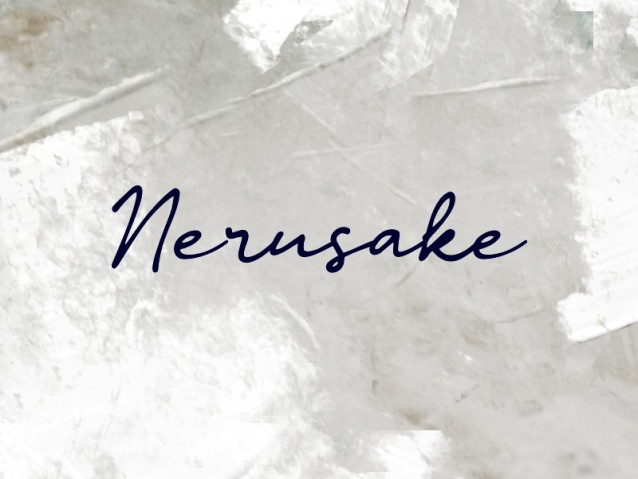
Nerusake Font
Nerusake Font is a simple and friendly handwritten font. Its natural and unique style makes it incredibly fitting to a large pool of designs. The only limit is your imagination!